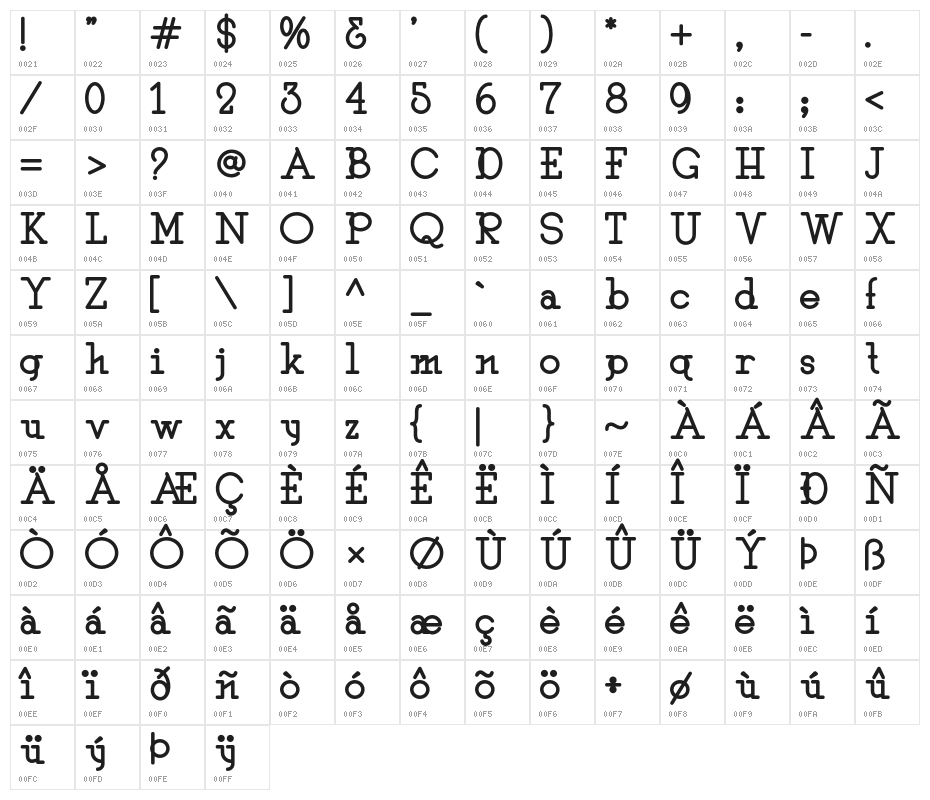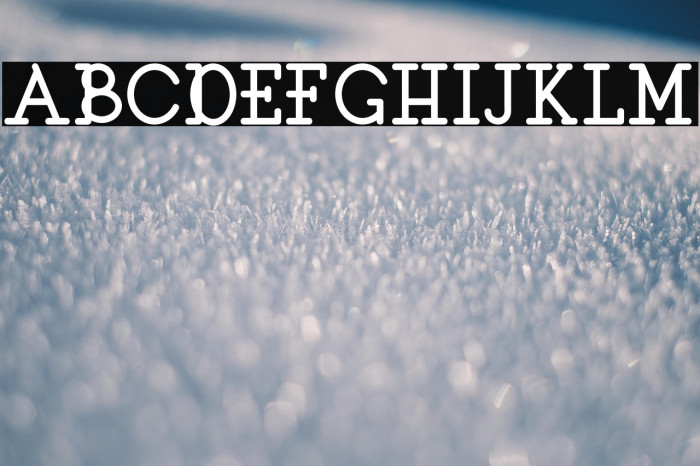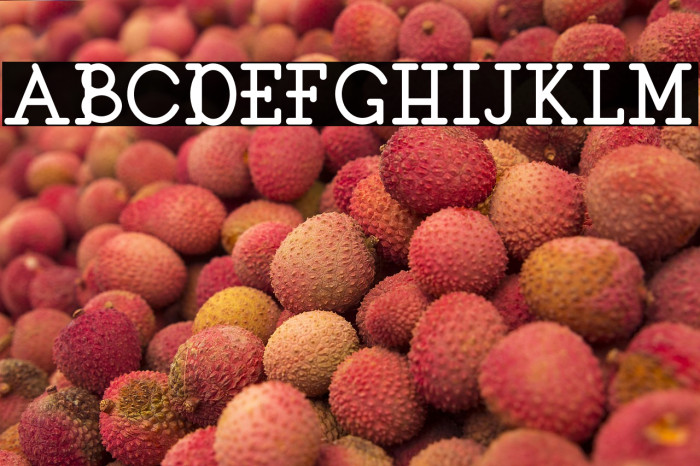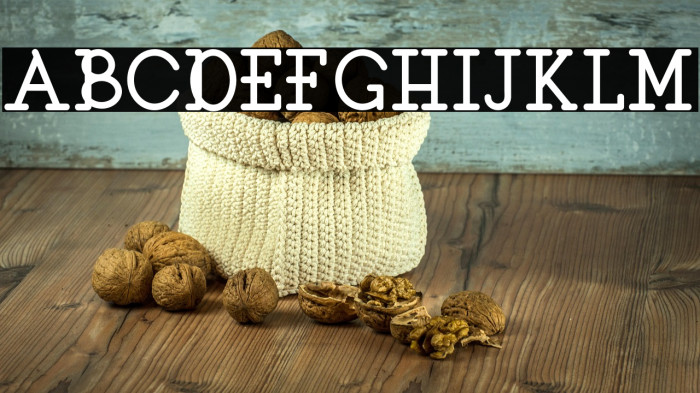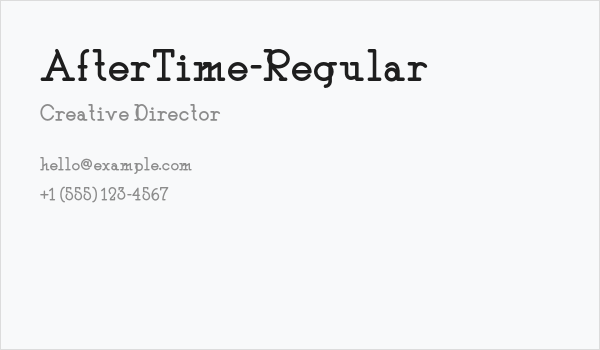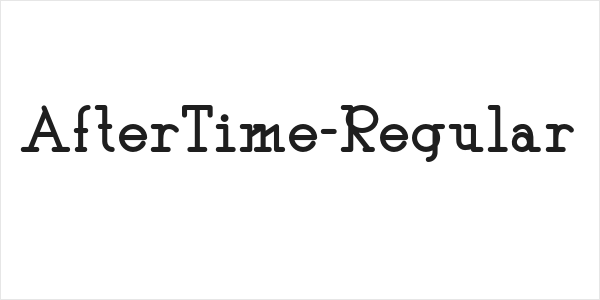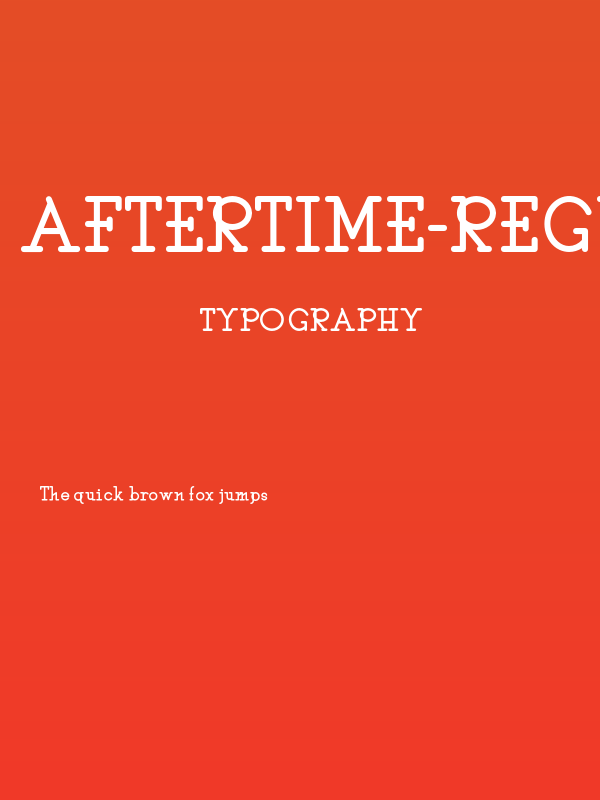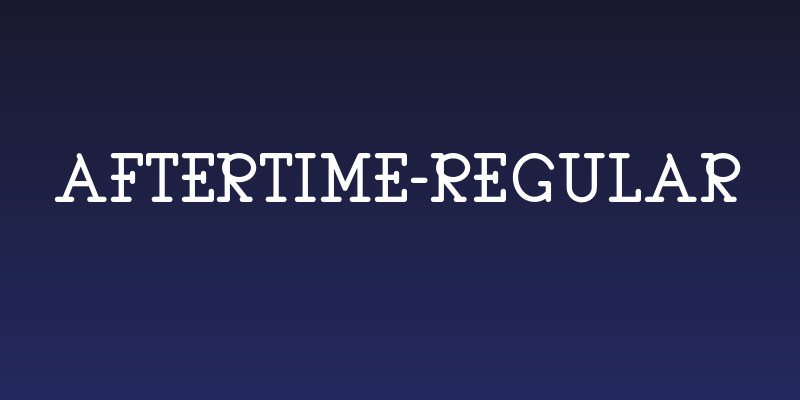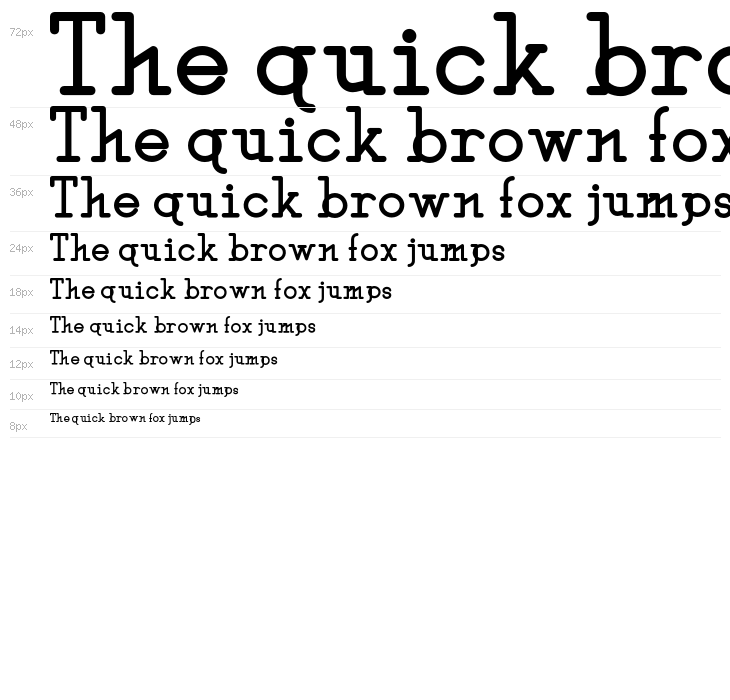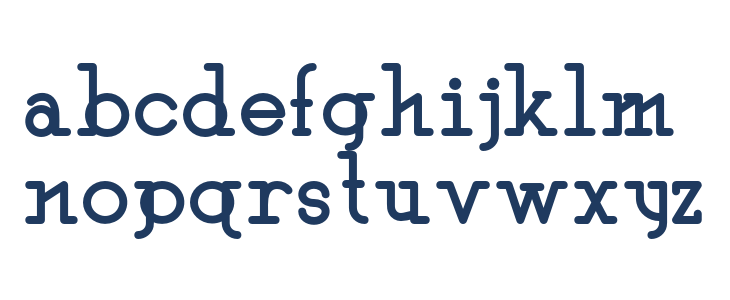
AfterTime-Regular Font
This font features a playful and slightly quirky design, characterized by its bold and rounded serifs. The uppercase letters are uniform in height, with a slight variation in width, giving them a balanced yet dynamic appearance. The lowercase letters maintain a consistent style, with rounded edges and a friendly demeanor. Numbers are bold and clear, making them easily readable. The special characters are well-integrated, maintaining the overall playful aesthetic. This font is suitable for projects that require a touch of whimsy and creativity, while still being legible and professional.
| Overall Style | Playful |
| Proposed Projects | Ideal for children's books, playful branding, creative posters, and casual invitations. |